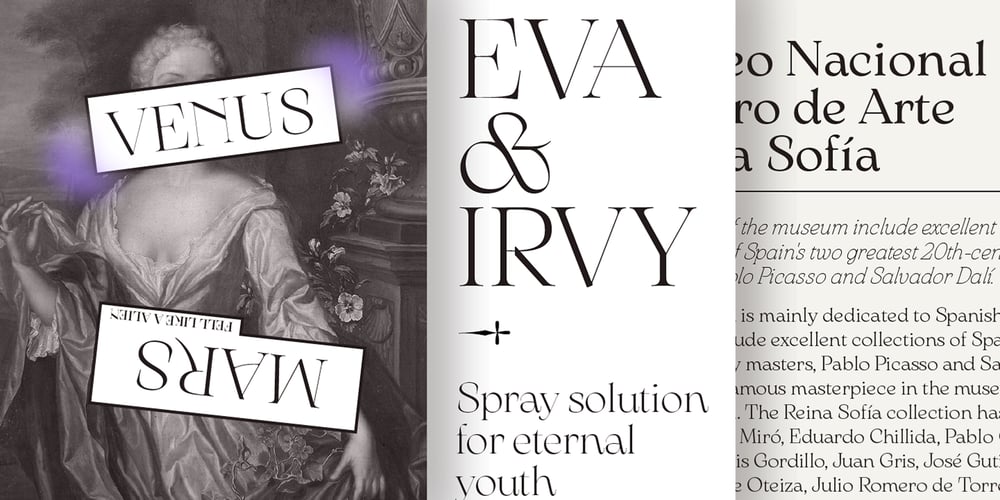
Arsenica
Arsenica font
Arsenica Font Family was designed by Francesco Canovaro, Andrea Tartarelli, Cosimo Lorenzo Pancini, Mario De Libero and published by Zetafonts. Arsenica contains 43 styles and family package options. Arsenica is a serif typeface designed by Francesco Canovaro for Zetafonts, and developed by a design team including Mario De Libero, Andrea Tartarelli and Cosimo Lorenzo Pancini.The design of Arsenica takes its inspiration from Italian poster design at the beginning of the century, a time where typography, lettering and illustration where closely interwoven. Dawning nationalist movements, rather than using the modernist language, pushed on traditional Old Style letterforms often imbued with Art Nouveau and Deco sensibility. Artists like Giorgio Muggiani not only illustrated posters for Cinzano, Pirelli and Rinascente, but also provided logo design for newspapers, like “Il Popolo d’Italia”.Starting from this mix of eclectic influences, Canovaro first developed the Arsenica Antiqua family, designed as display typeface that keeps the original Old Style low-contrast, wide proportions and quirky stylistic inventions. These where then distilled in a high contrast, Arsenica Display family, expanding the weight range to include both poster, ultra-bold weights and lighter weights that give the design a distinct calligraphic flavour. Bringing the letterforms into contemporary taste meant also developing alternate letterforms that were included in the Arsenica Alternate family, that drops the art nouveau details in favour of a more controlled modern serif aesthetic. Finally, Arsenica Text was developed by expanding the design space in the optical size axis, creating a low contrast, strongly readable old style typeface family, with a reduced weight set, oriented for long body copy typesetting.The final result is a superfamily of 41 weights, covering the design space with an expanded charset of over 900 glyphs, with full coverage of over 200 languages using latin and Cyrillic alphabets. All the weights of Arsenica come with a full set of open type features allowing to explore its vintage-inspired visual inventions thanks to stylistic sets, discretionary ligatures, contextual alternates and positional numbers. Two variable typefaces are included in the full family, allowing you to explore the design space and precisely control not only the weight but also the optical size design variations.• Suggested uses: perfect for elegant modern branding and logo design, fascinating editorial design, expressive packaging and countless other projects.• 43 styles: 7 weights + 7 italics, 4 different styles + 2 variable fonts.• 942 glyphs in each weight.• Useful OpenType features: Access All Alternates, Contextual Alternates, Case-Sensitive Forms, Glyph Composition / Decomposition, Discretionary Ligatures, Kerning, Lining Figures, Localized Forms, Mark Positioning, Mark to Mark Positioning, Oldstyle Figures, Ordinals, Stylistic Alternates, Stylistic Set 1, Stylistic Set 2, Stylistic Set 3, Stylistic Set 4, Stylistic Set 5, Stylistic Set 6, Stylistic Set 7, Stylistic Set 8, Stylistic Set 9, Slashed Zero.• 216 languages supported (extended Latin and Cyrillic alphabets): English, Spanish, Portuguese, French, Russian, German, Javanese (Latin), Turkish, Italian, Polish, Afaan Oromo, Azeri, Tagalog, Sundanese (Latin), Filipino, Moldovan, Romanian, Indonesian, Dutch, Cebuano, Igbo, Malay, Uzbek (Latin), Kurdish (Latin), Swahili, Hungarian, Czech, Haitian Creole, Hiligaynon, Afrikaans, Somali, Zulu, Serbian, Swedish, Bulgarian, Shona, Quechua, Albanian, Catalan, Chichewa, Ilocano, Kikongo, Kinyarwanda, Neapolitan, Xhosa, Tshiluba, Slovak, Danish, Gikuyu, Finnish, Norwegian, Sicilian, Sotho (Southern), Kirundi, Tswana, Sotho (Northern), Belarusian (Latin), Turkmen (Latin), Bemba, Lombard, Lithuanian, Tsonga, Wolof, Jamaican, Dholuo, Galician, Ganda, Low Saxon, Waray-Waray, Makhuwa, Bikol, Kapampangan (Latin), Aymara, Zarma, Ndebele, Slovenian, Tumbuka, Venetian, Genoese, Piedmontese, Swazi, Zazaki, Latvian, Nahuatl, Silesian, Bashkir (Latin), Sardinian, Estonian, Afar, Cape Verdean Creole, Maasai, Occitan, Tetum, Oshiwambo, Basque, Welsh, Chavacano, Dawan, Montenegrin, Walloon, Asturian, Kaqchikel, Ossetian (Latin), Zapotec, Frisian, Guadeloupean Creole, Q’eqchi’, Karakalpak (Latin), Crimean Tatar (Latin), Sango, Luxembourgish, Samoan, Maltese, Tzotzil, Fijian, Friulian, Icelandic, Sranan, Wayuu, Papiamento, Aromanian, Corsican, Breton, Amis, Gagauz (Latin), Māori, Tok Pisin, Tongan, Alsatian, Atayal, Kiribati, Seychellois Creole, Võro, Tahitian, Scottish Gaelic, Chamorro, Greenlandic (Kalaallisut), Kashubian, Faroese, Rarotongan, Sorbian (Upper Sorbian), Karelian (Latin), Romansh, Chickasaw, Arvanitic (Latin), Nagamese Creole, Saramaccan, Ladin, Palauan, Sami (Northern Sami), Sorbian (Lower Sorbian), Drehu, Wallisian, Aragonese, Mirandese, Tuvaluan, Xavante, Zuni, Montagnais, Hawaiian, Marquesan, Niuean, Yapese, Vepsian, Bislama, Hopi, Megleno-Roma